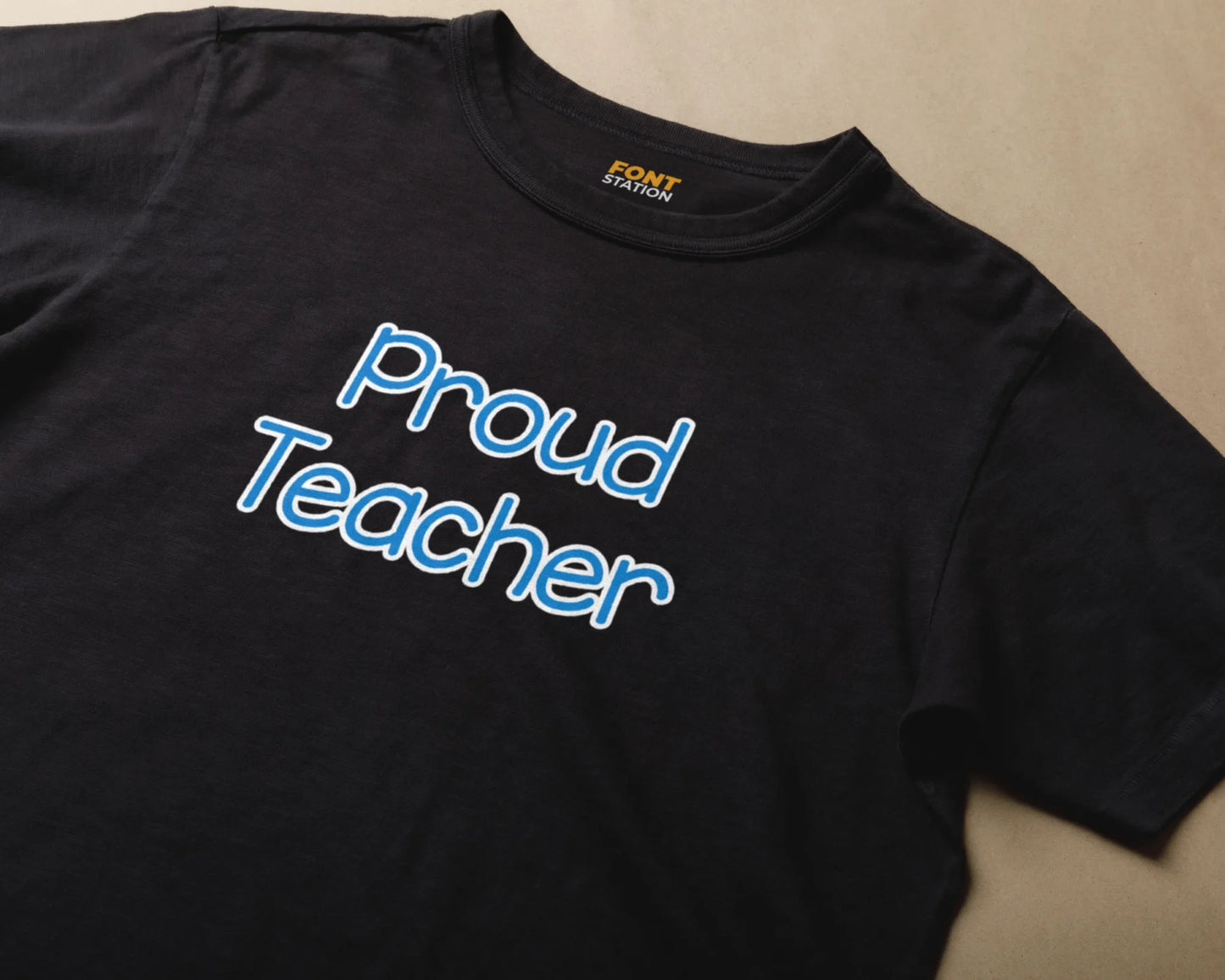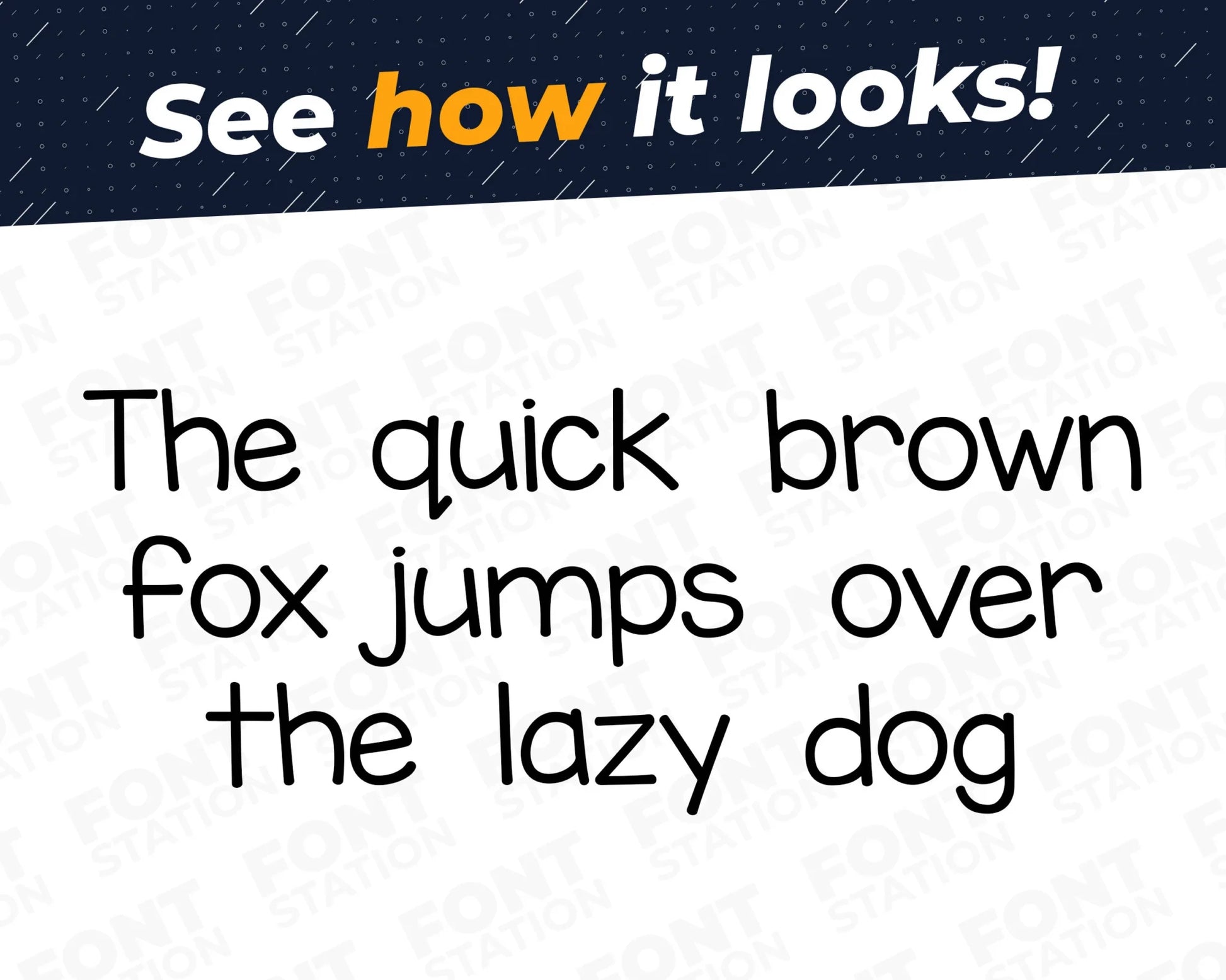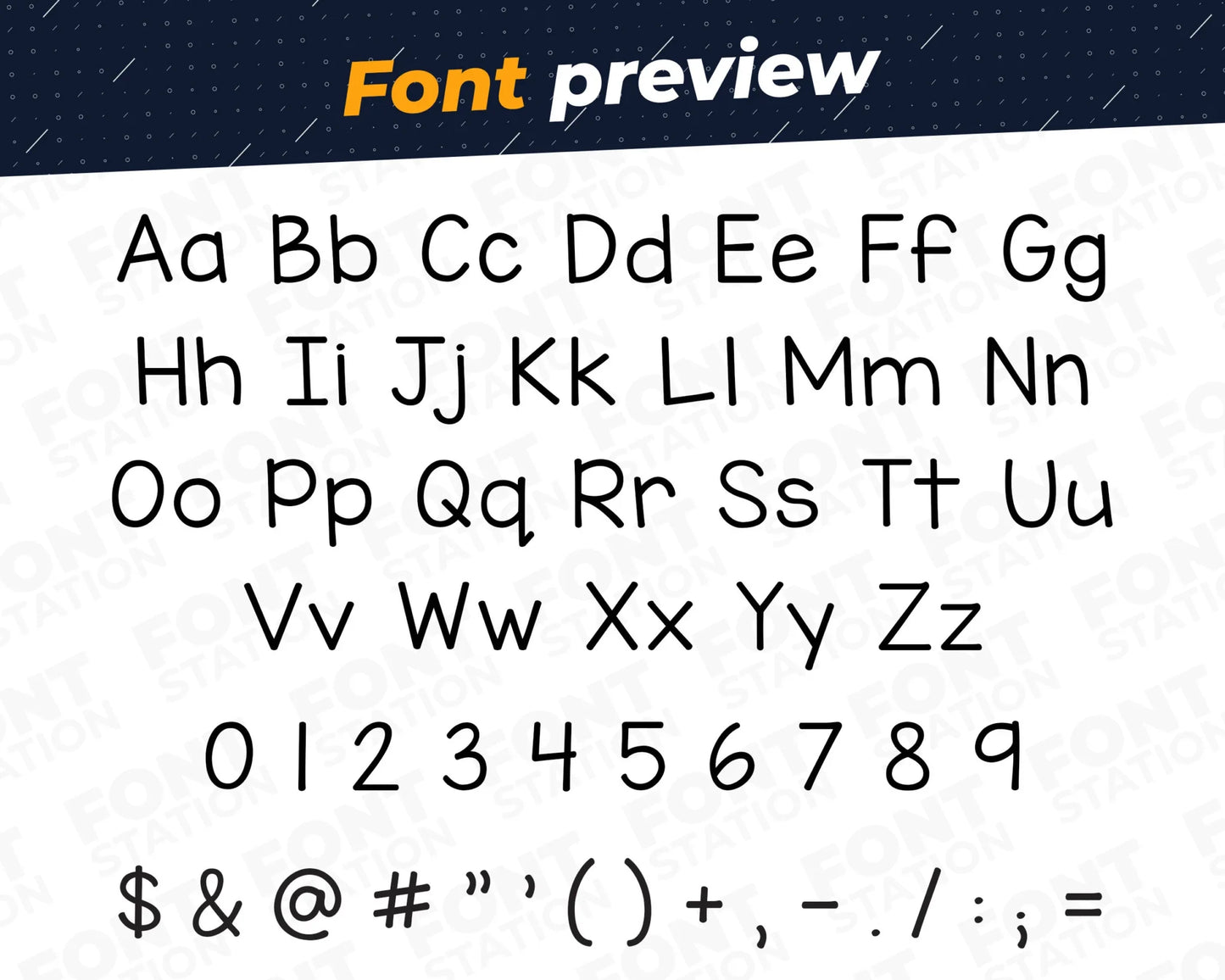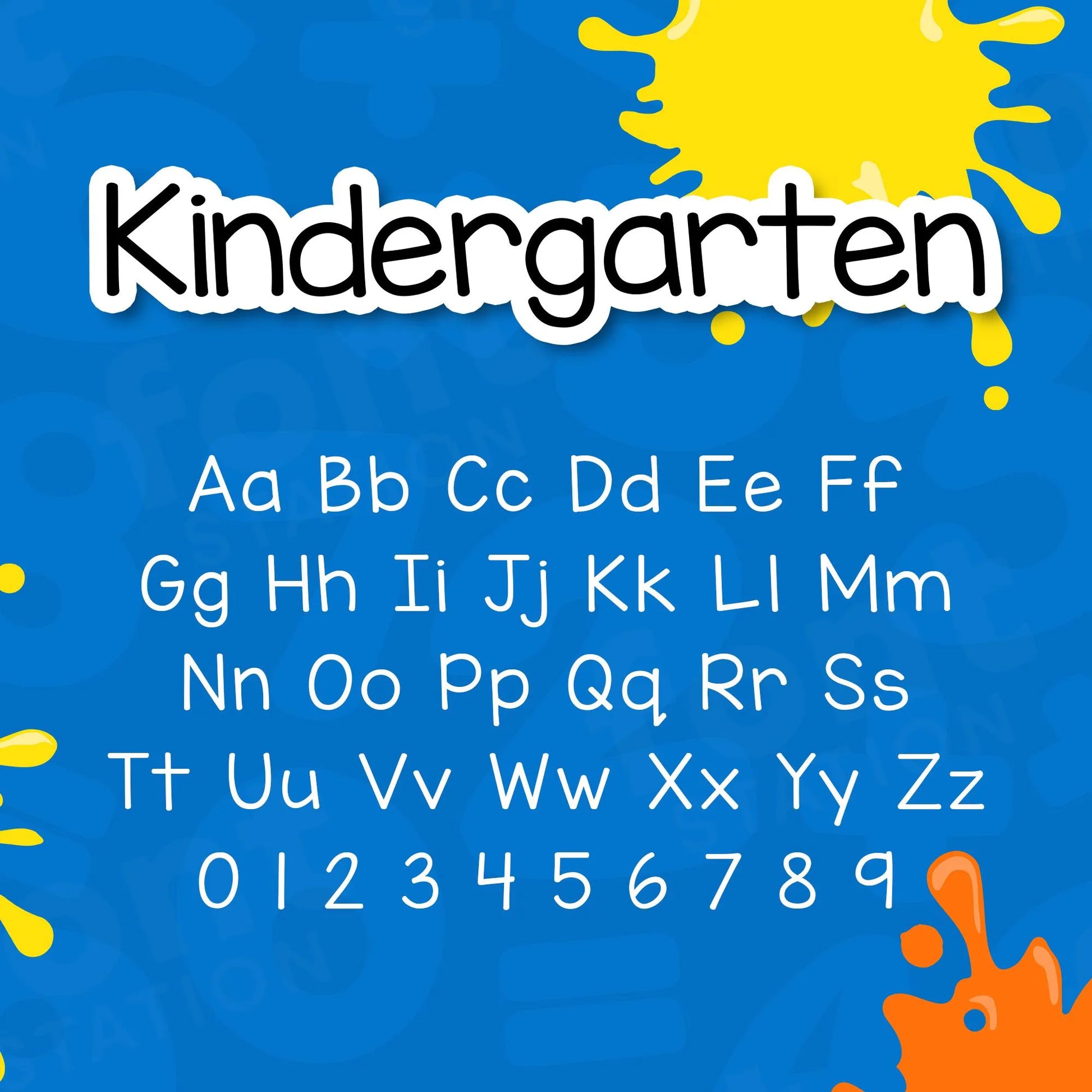
Back To School Font - Kindergarten Font
Our Back To School typeface, inspired from Kindergarten font
Grab your computer, tablet or other device and start creating right now with our Kindergarten font letters! Our Back To School typography is inspired from Kindergarten preschool font, making it ideal for various digital creations (logo, word...), sublimation, cake toppers, stickers, event decorations, and more.